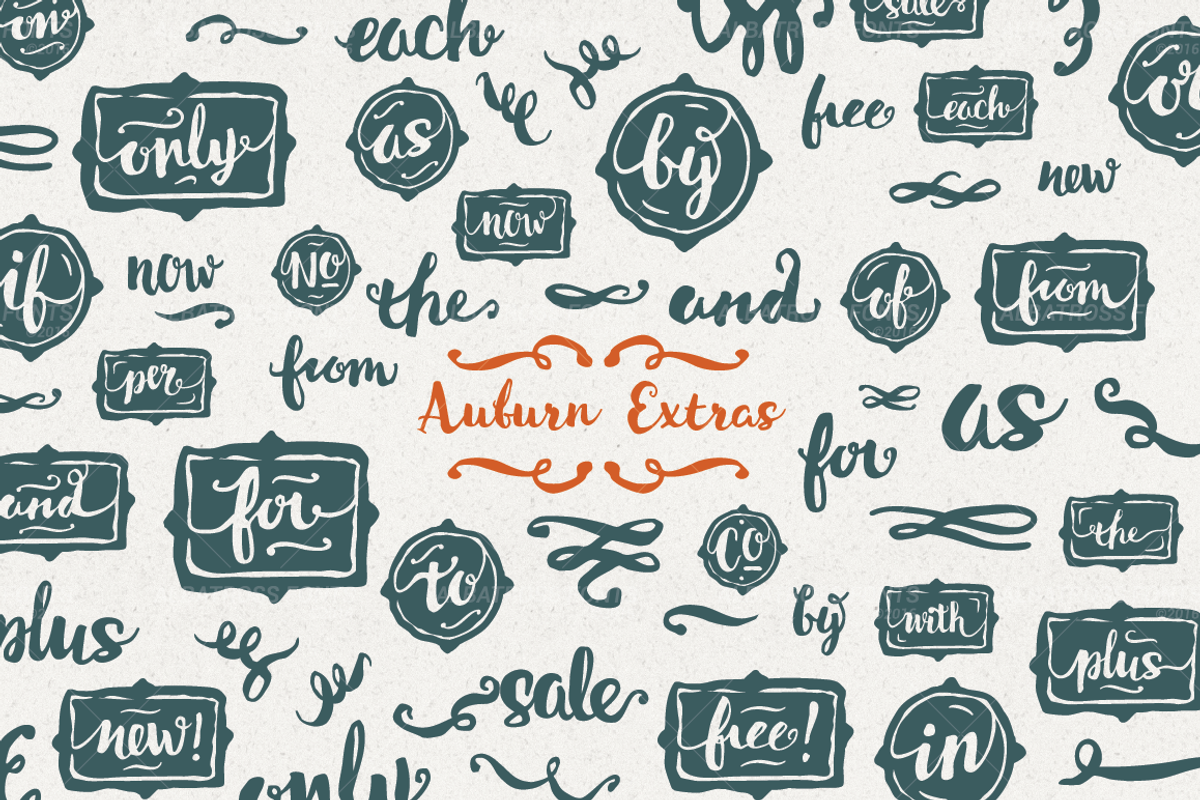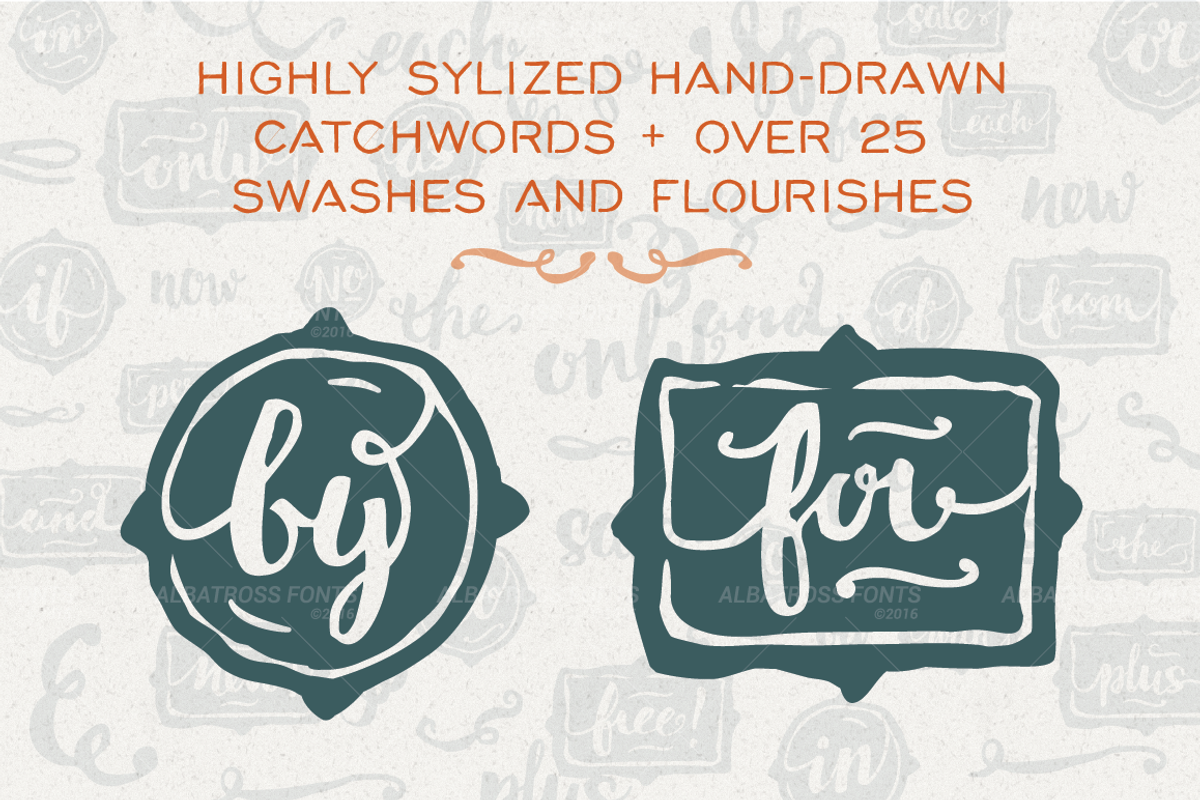
Auburn Extras Font + Vector
Auburn Extras Font + Vector by Albatross is a font selected for branding, posters, packaging, typography.
- Also included in the font are over 25 swashes and flourishes for adding that extra ornamental touch to your designs.
- This font was originally designed to accompany Auburn™, a bold hand-drawn script font packed with opentype features including alternates, st
Auburn Extras Font + Vector by Albatross fits naturally into Branding, posters, packaging, typography.